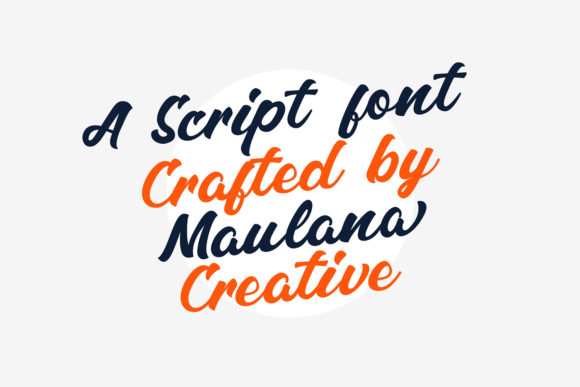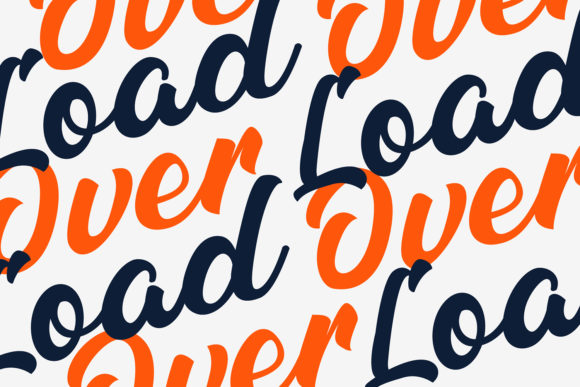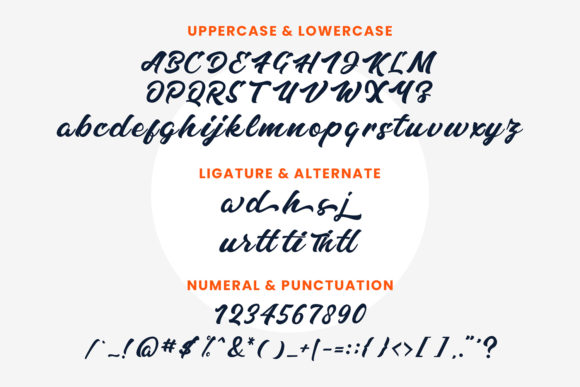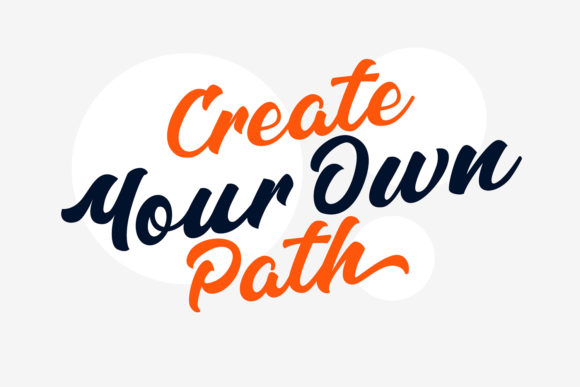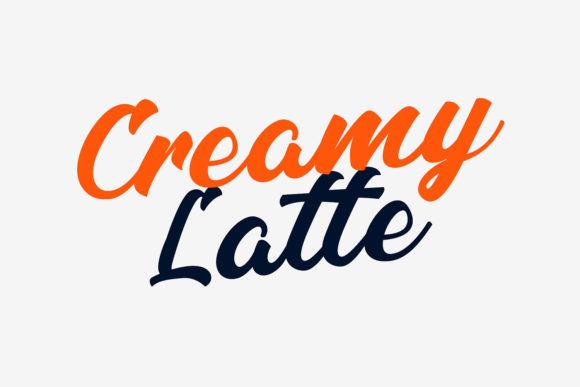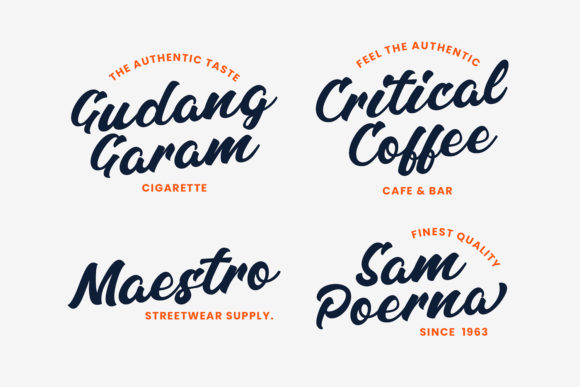
Introducing Calks Font: A Stylish and Bold Handwritten Font for Your Design Projects
Are you looking for a font that can add a touch of style and sophistication to your design projects? Look no further than Calks Font, a gorgeous and bold handwritten font that’s perfect for headlines, logotypes, and more. In this article, we’ll take a closer look at Calks Font, its features, and how you can use it to elevate your designs.
What is Calks Font?
Calks Font is a carefully crafted handwritten font that’s designed to give your designs a strong, confident, and dynamic look. With its bold and expressive strokes, Calks Font is perfect for creating eye-catching headlines, logotypes, and titles that demand attention. Whether you’re working on a branding project, a website, or a marketing campaign, Calks Font is a versatile and stylish choice that can help you achieve your design goals.
Key Features of Calks Font
So, what makes Calks Font so special? Here are some of its key features:
- Bold and expressive strokes: Calks Font features bold and expressive strokes that give it a strong and confident look.
- Handwritten feel: With its handwritten feel, Calks Font adds a touch of personality and warmth to your designs.
- Dynamic and energetic: Calks Font is perfect for creating dynamic and energetic designs that grab attention.
- Nostalgic character: Calks Font has a nostalgic character that can add a touch of vintage charm to your designs.
How to Use Calks Font in Your Design Projects
Calks Font is a versatile font that can be used in a variety of design projects, including:
- Branding and logos: Use Calks Font to create bold and eye-catching logos that make a statement.
- Headlines and titles: Calks Font is perfect for creating attention-grabbing headlines and titles that draw the reader in.
- Websites and blogs: Add a touch of style and sophistication to your website or blog with Calks Font.
- Marketing and advertising: Use Calks Font to create dynamic and energetic marketing materials that grab attention.
Tips for Getting the Most Out of Calks Font
Here are some tips for getting the most out of Calks Font:
- Use it boldly: Calks Font is a bold font, so don’t be afraid to use it boldly in your designs.
- Experiment with colors: Try pairing Calks Font with different colors to create a unique and eye-catching look.
- Mix it with other fonts: Calks Font pairs well with other fonts, so don’t be afraid to experiment with different font combinations.
In conclusion, Calks Font is a stylish and bold handwritten font that’s perfect for designers and crafters looking to add a touch of style and sophistication to their design projects. With its bold and expressive strokes, dynamic and energetic feel, and nostalgic character, Calks Font is a versatile and stylish choice that can help you achieve your design goals. So why not give Calks Font a try today and see how it can elevate your designs?